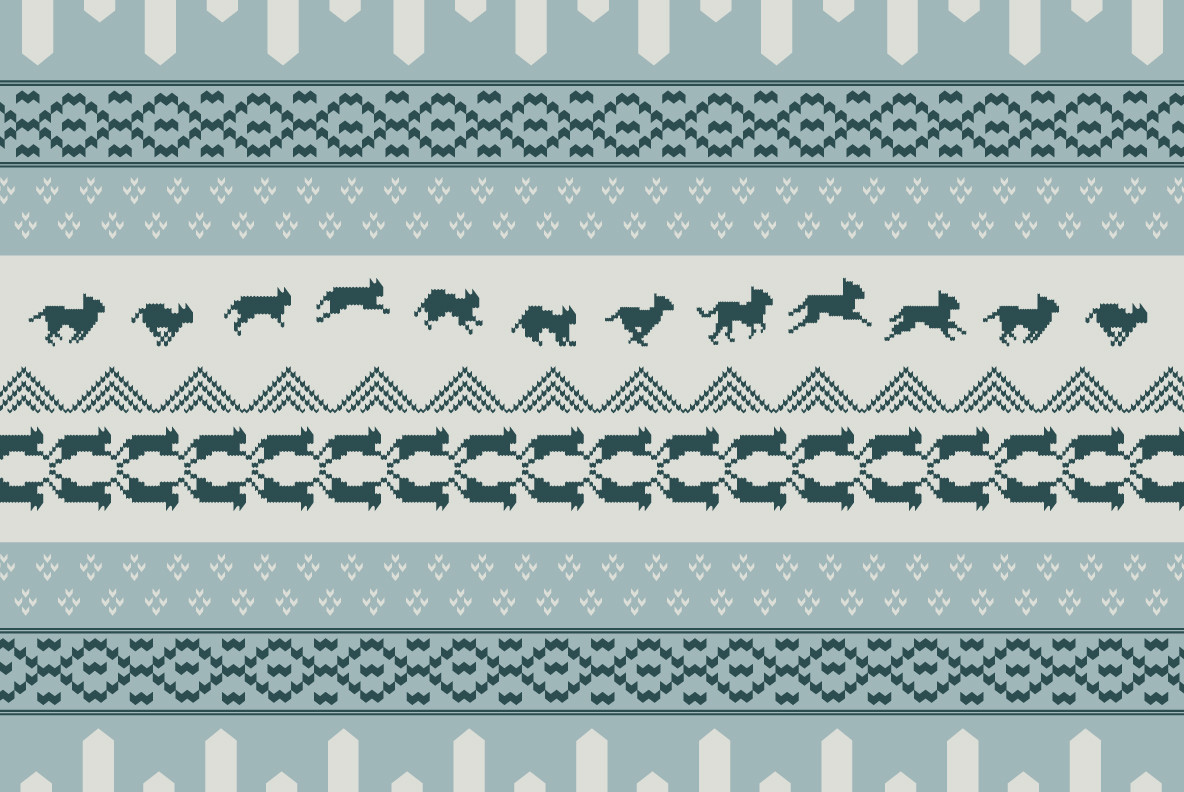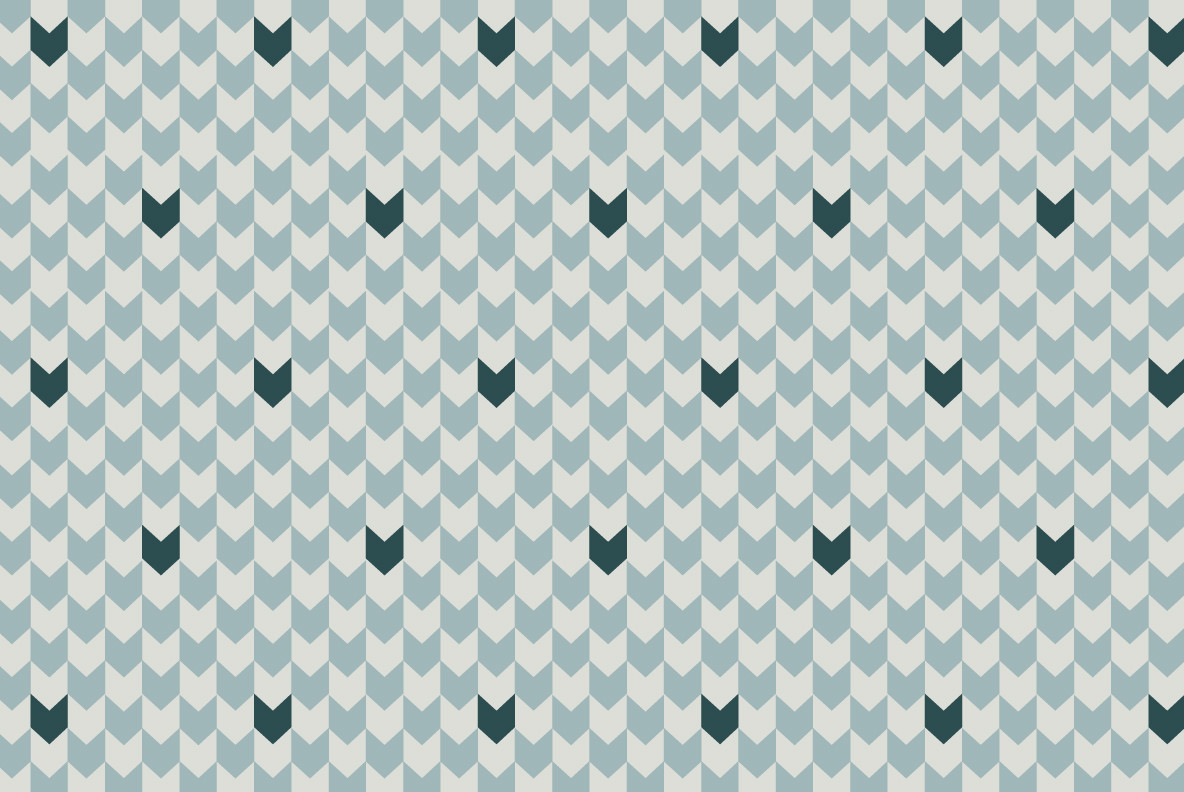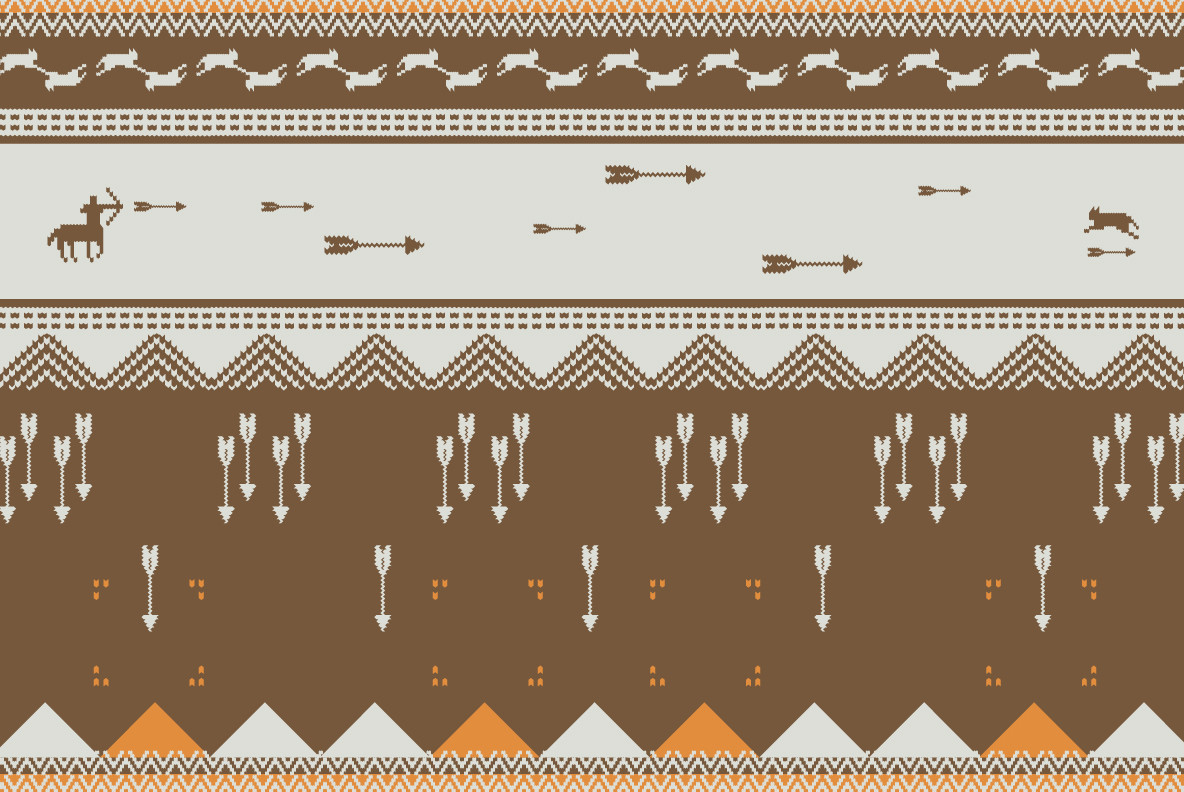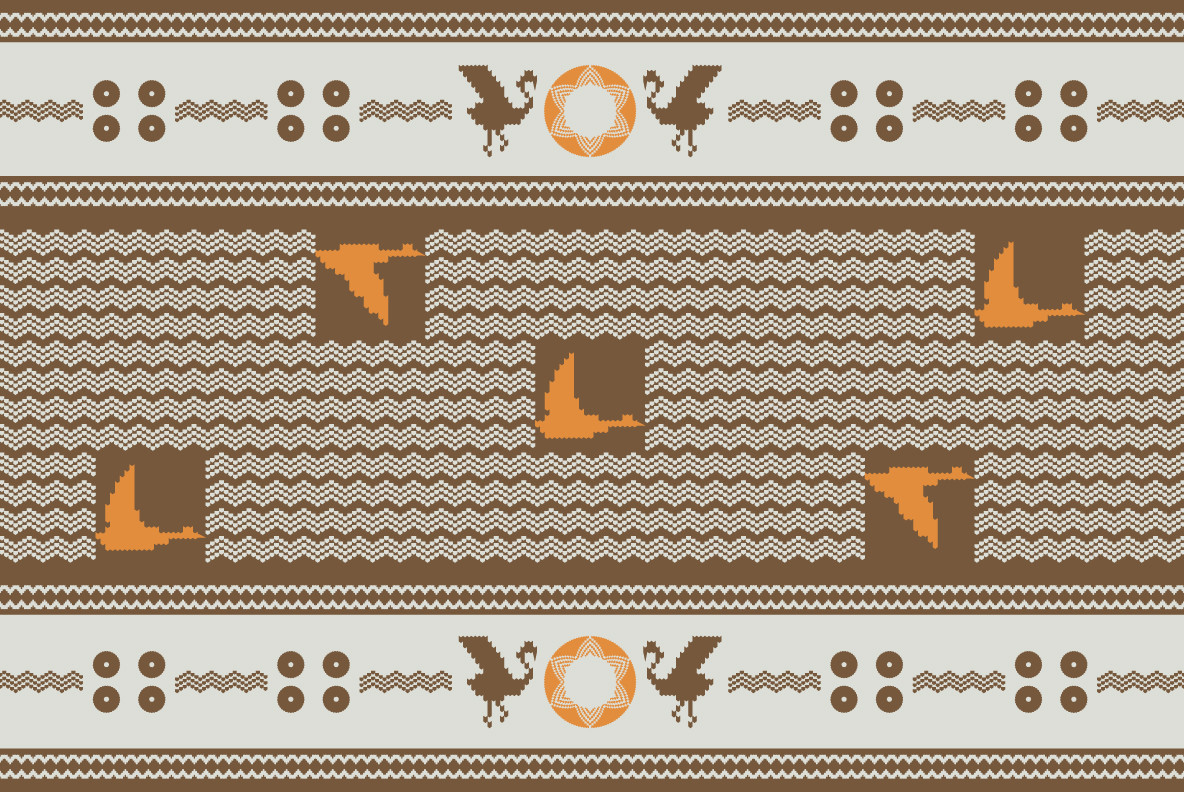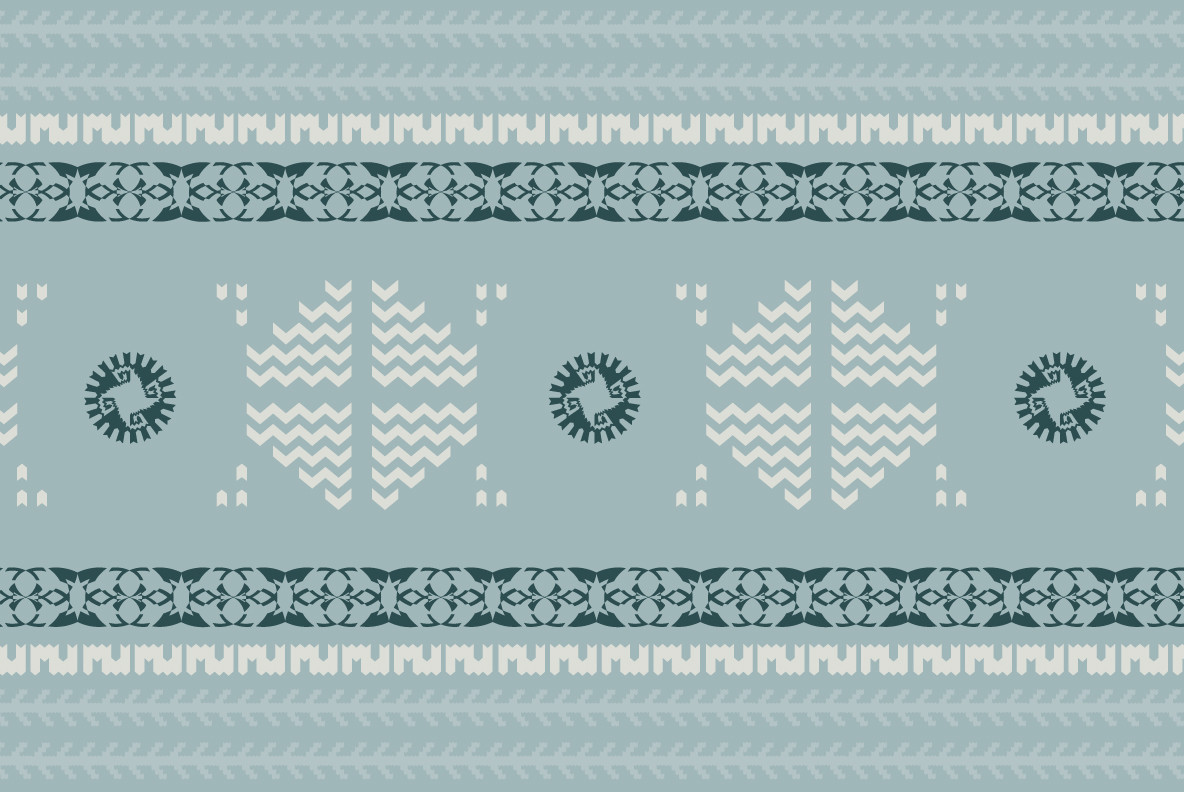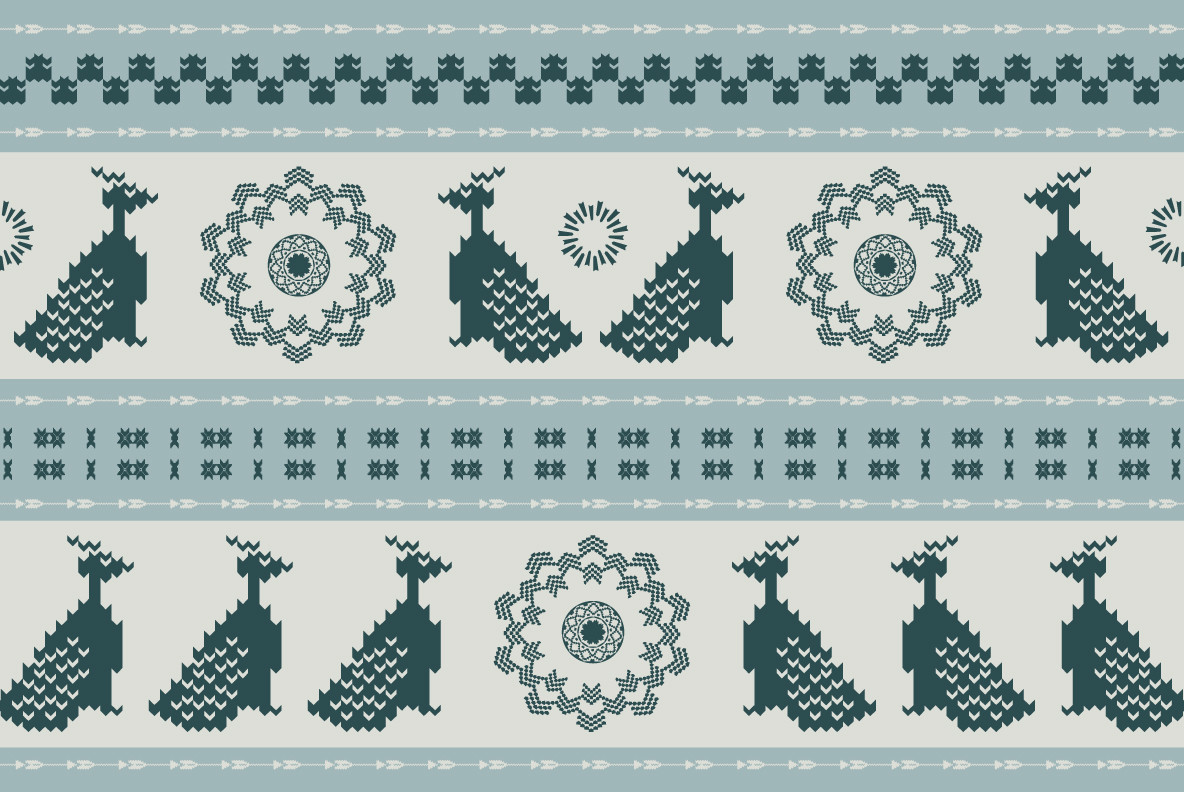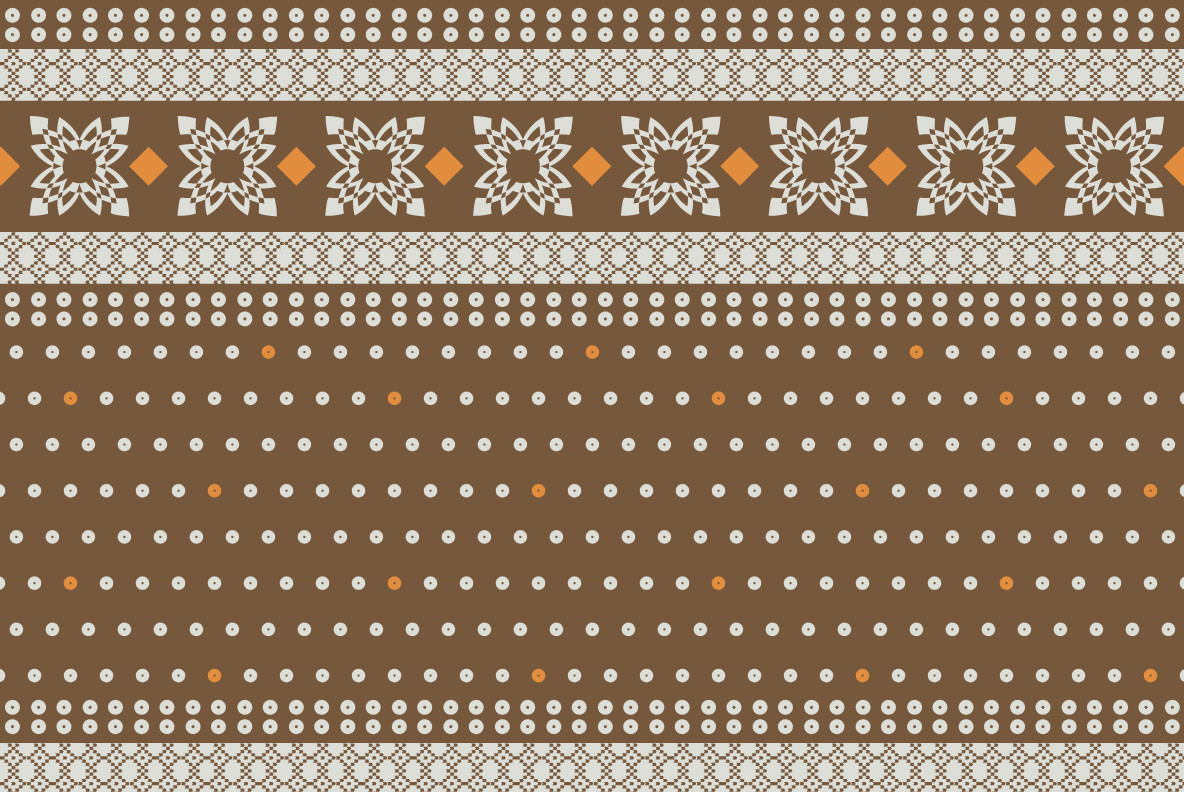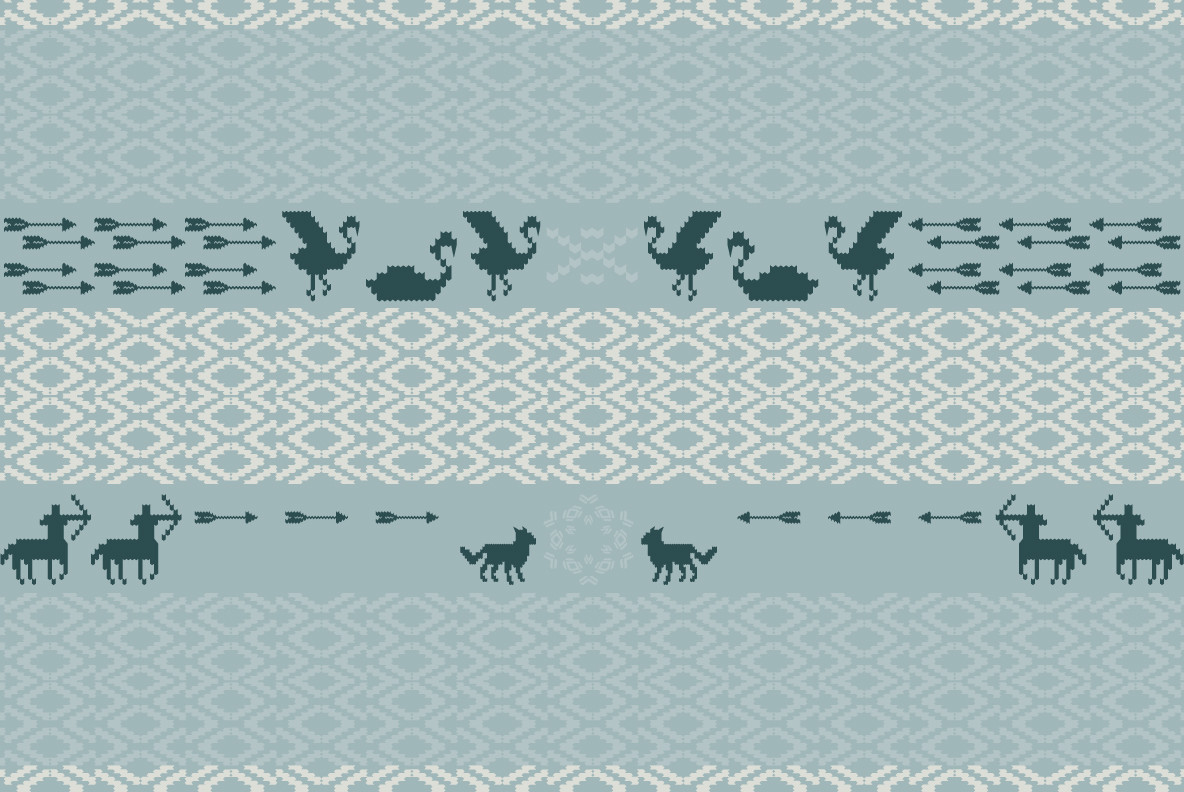
YWFT Knit
YWFT Knit is an icon, symbol and pattern style dingbat font created with the ability to execute multiple design ideas. The font was designed with special kerning, allowing the ability on certain letter combos to create intriguing pattern designs. This isn't your typical dingbat design either, it comes filled with 241 unique glyphs, extended in areas like basic latin, latin-1, latin-extended a/b, greek and coptic, currency, mathematical operators and many other special delights.
For best use, open in Adobe Illustrator with the glyph window open as well. This way you can see all the characters at hand, and type or select the icon/symbol you want. A general method that always returns a good result, is to select 3 characters per line, and loop them for interesting folk-like patterns. For example, some interesting letter combinations would be: ae ae ae ae or gsh gsh gsh.